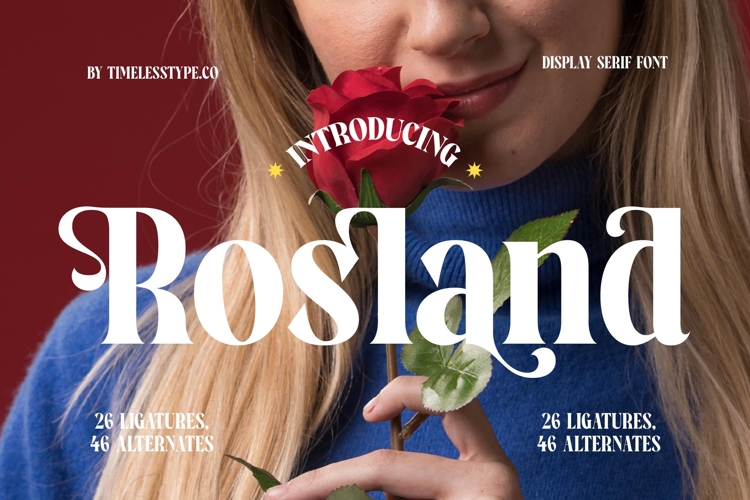
Rosland - Display Serif Font
Rosland is a display serif font that blends timeless elegance with bold decorative flair, making it perfect for sophisticated and expressive design projects. Its chunky strokes, high contrast serifs, and playful swashes create a distinctive personality that feels both modern and classic. Designed with 26 ligatures and 46 alternates, Rosland provides a wide range of creative possibilities, allowing designers to craft unique compositions that stand out with style and refinement.
This font is designed to excel in headline typography, where its bold and stylish shapes immediately capture attention across posters, banners, and editorial spreads. In branding and logo design, Rosland communicates luxury and creativity, making it ideal for fashion houses, beauty brands, and boutique businesses that want a strong and memorable identity. Its decorative alternates also make it highly effective in packaging design, particularly for perfumes, cosmetics, wine labels, and artisanal goods where elegance and detail are crucial.
Rosland shines in advertising campaigns, event promotions, and social media graphics, where its ligatures and alternates bring individuality and character to every message. On digital platforms, it delivers clarity while elevating layouts with a stylish editorial look, making it perfect for high-end brand storytelling.
Its versatility extends to wedding invitations, certificates, book covers, and lifestyle projects, where grandeur and beauty are essential. With multilingual support, Rosland adapts seamlessly across international markets, making it a valuable tool for global branding and publishing.
Ultimately, Rosland is more than a serif font—it is a statement of elegance, artistry, and timeless sophistication. Whether used for editorials, branding, packaging, or advertising, it guarantees every project radiates charm, authority, and unforgettable style.